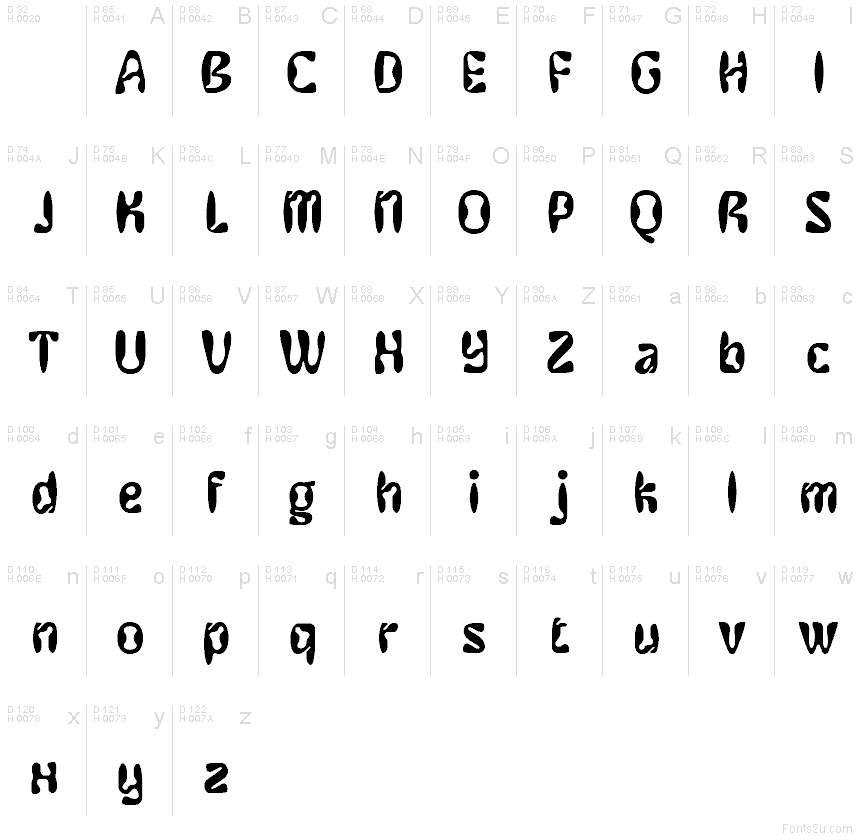
CSTropicaDrawn-Regular Demo
CS Tropica Drawn font by Craft Supply Co. is a groovy display typeface with an unmistakable tropical vibe. With its smooth organic shapes, it delivers decorative and artistic flair on soft, delicate lines that are united within each letter of each word written with it. CS Tropica Drawn is free for all kinds of use.
Its uses can only adhere to the artist’s imagination from logo designs and website fonts to greeting cards, invitations, social media posts, and ads. Or you can combine them with magazine covers/headers that capture the energy the material holds under a different light!